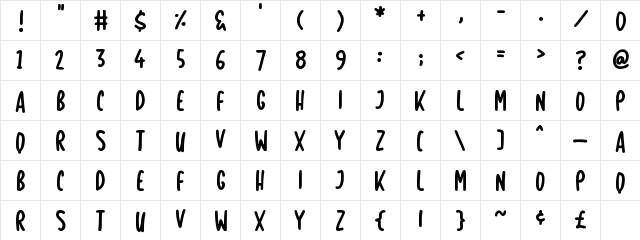
Simply Be Regular
Design Context for Simply Be Typeface
Simply Be offers clean, dependable letterforms without strong stylistic allegiance, making it a practical choice for designers who need flexibility.
Pro Tip: Use Simply Be in both headline and body roles to test its range before committing to a single application.